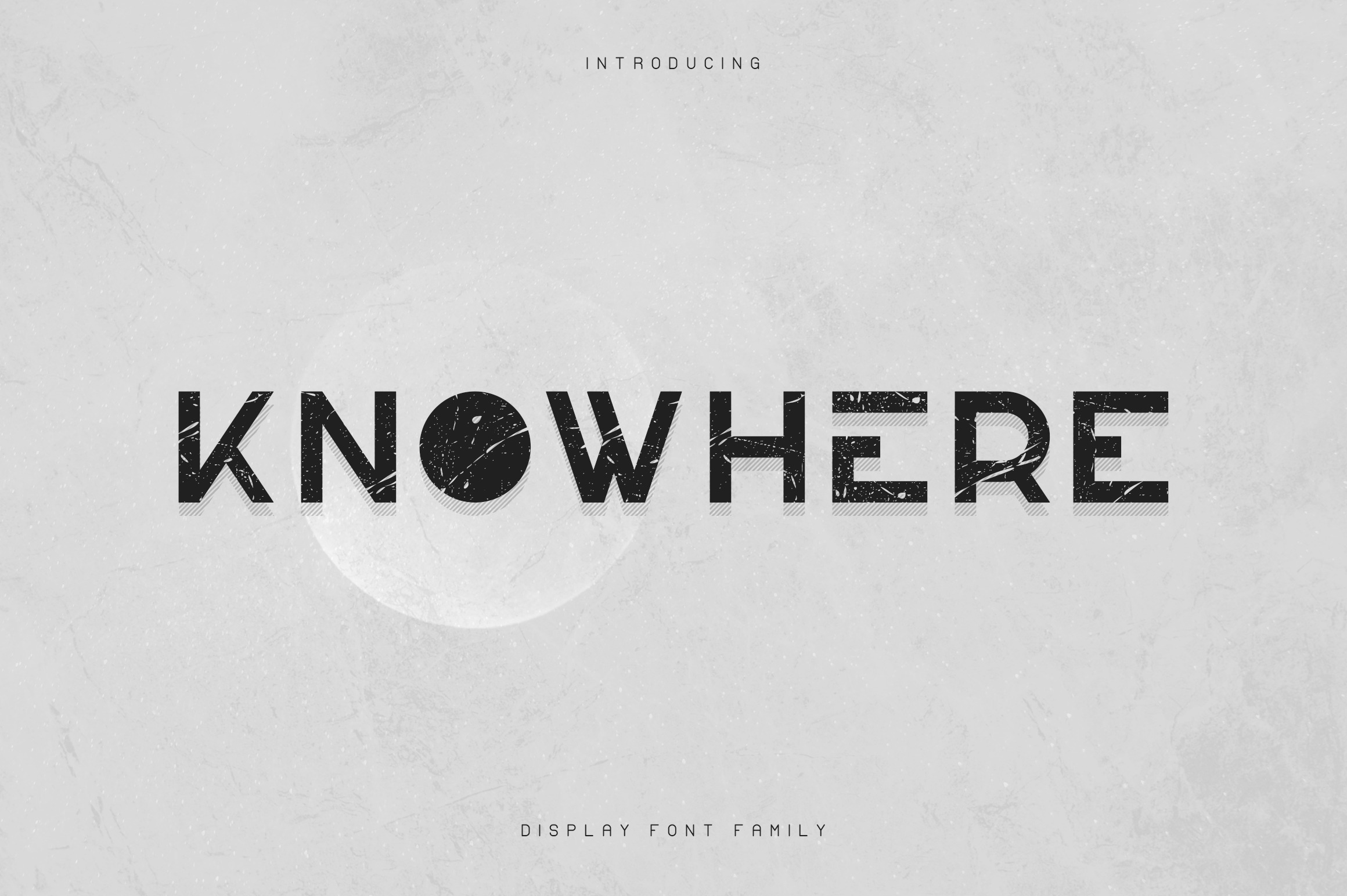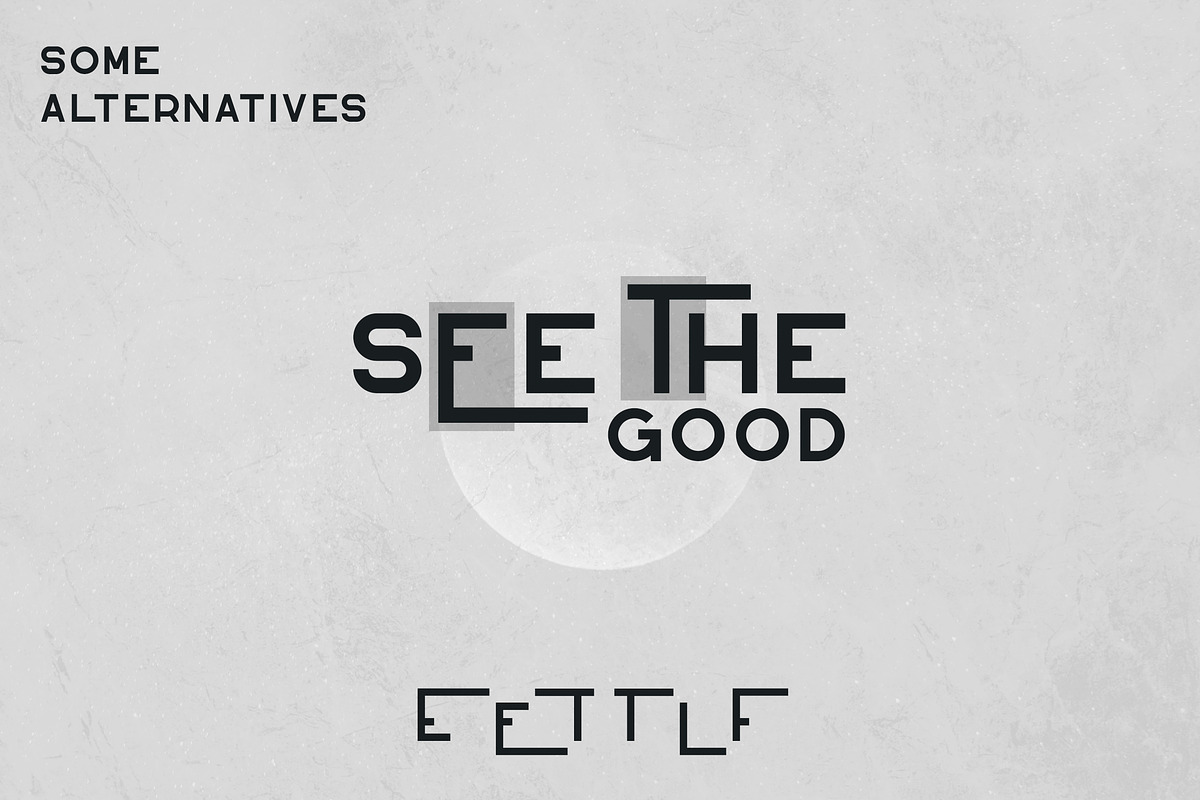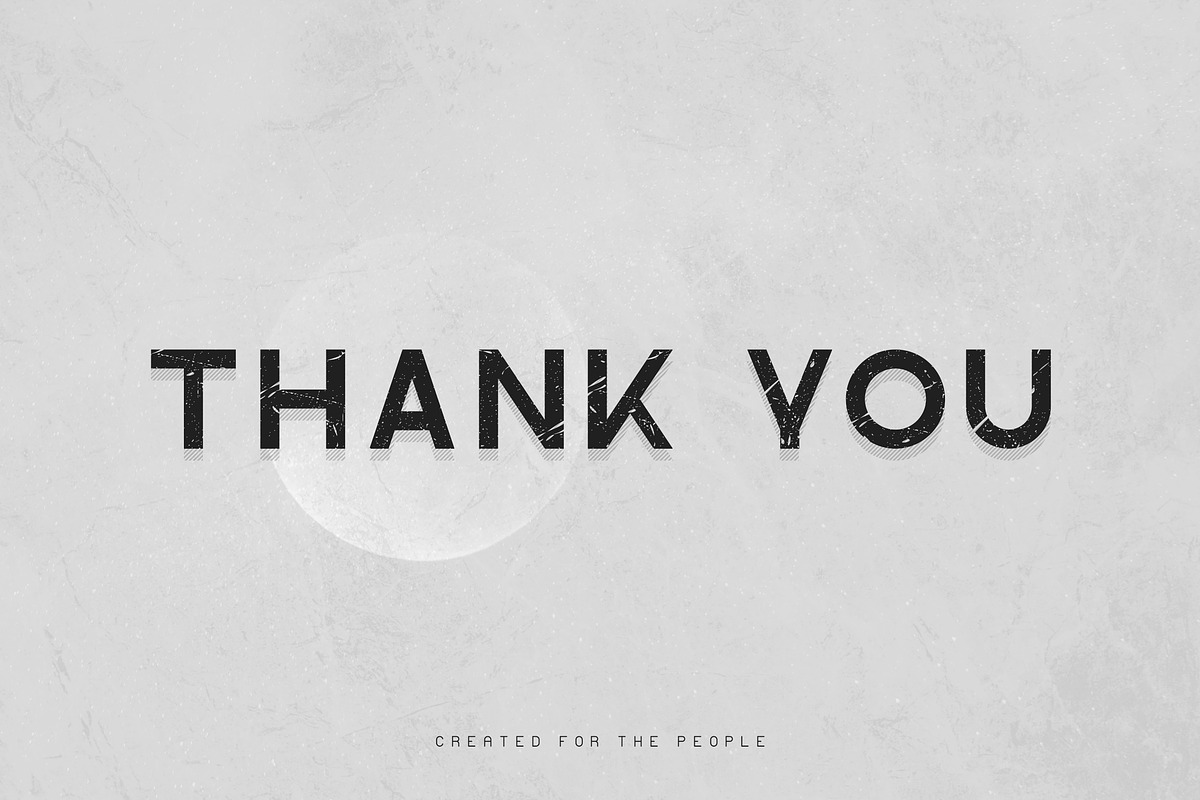
Knowhere is geometrical, clean font family with 2 weights and 5 styles, and multilingual support. It's a very versatile font that works great in large and small sizes.
Knowhere is perfect for branding projects, home-ware designs, product packaging, magazine headers - or simply as a stylish text overlay to any background image.
- Uppercase,lowercase,numeral,punctuation & Symbol
- Bold
- Rough
- Lines
- Outline
- Outlinetwo